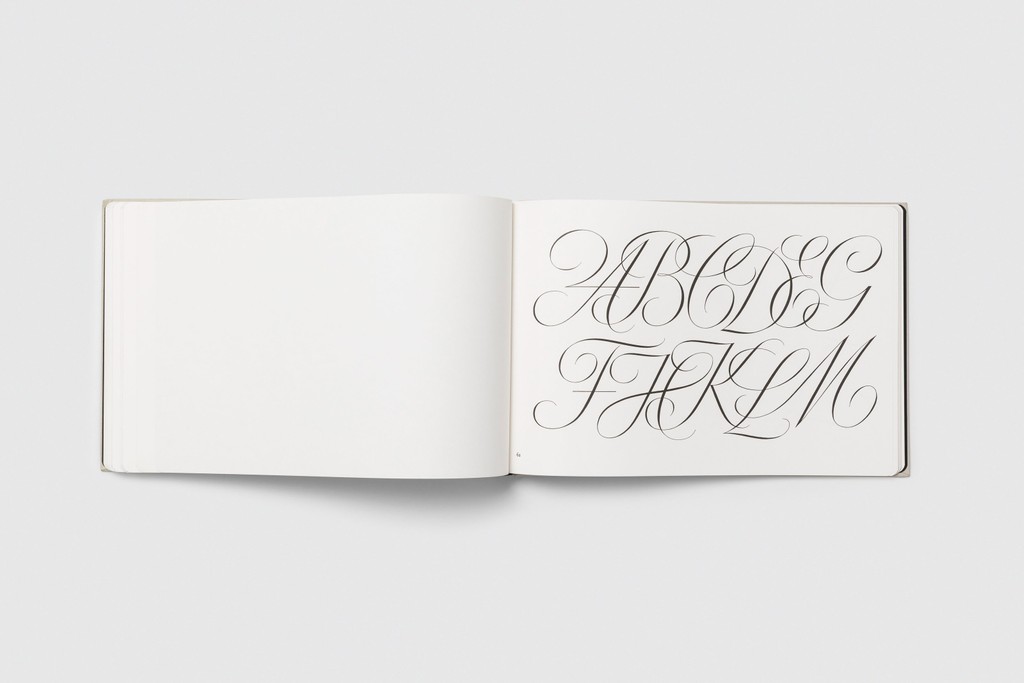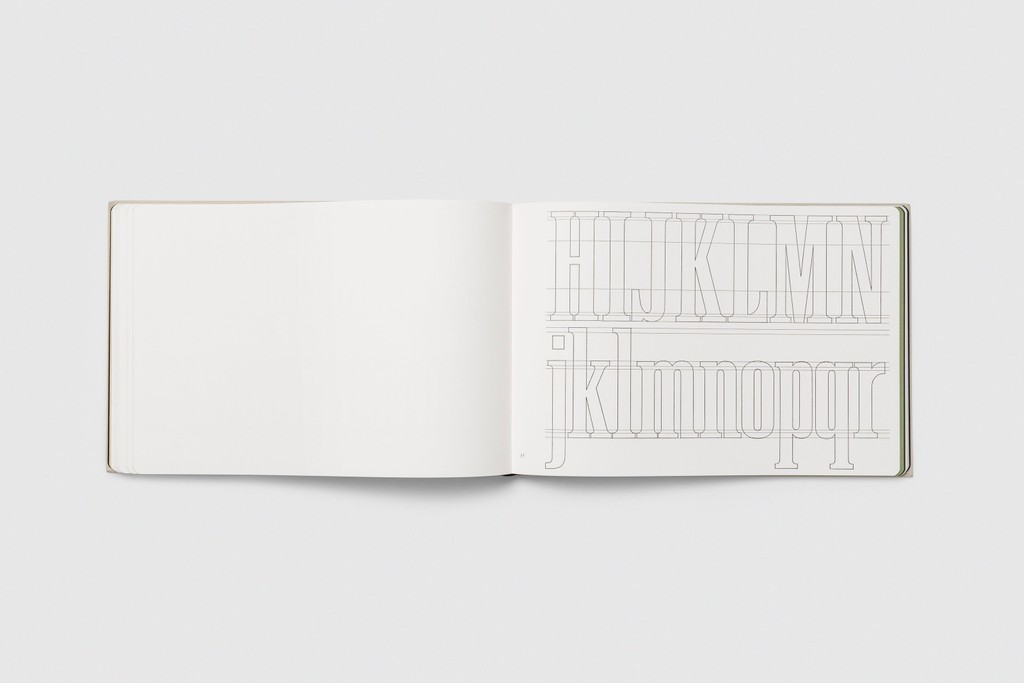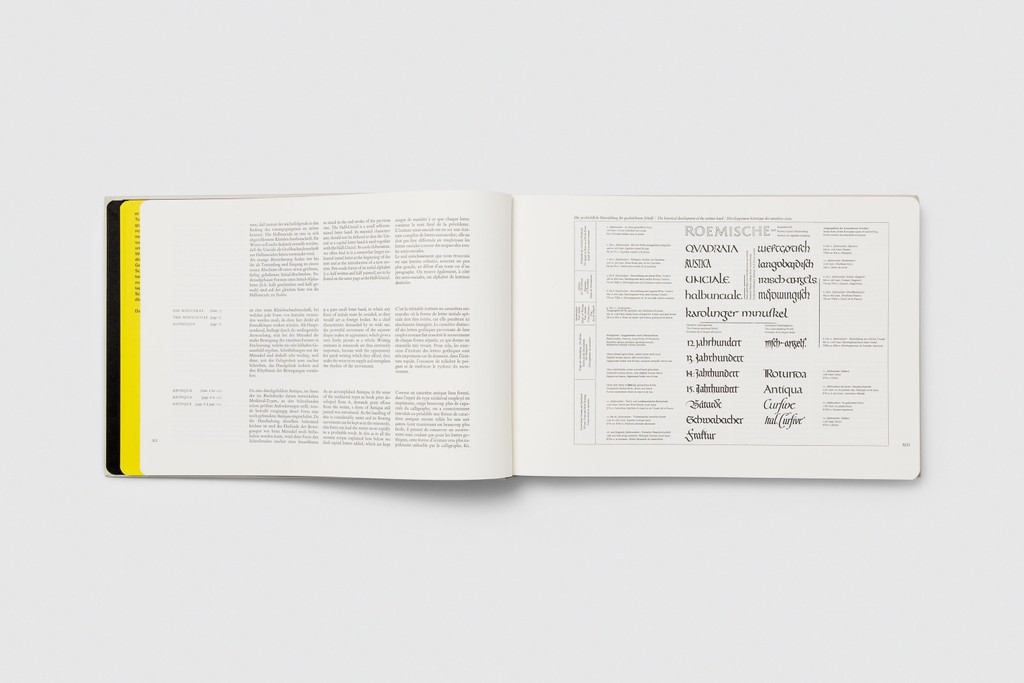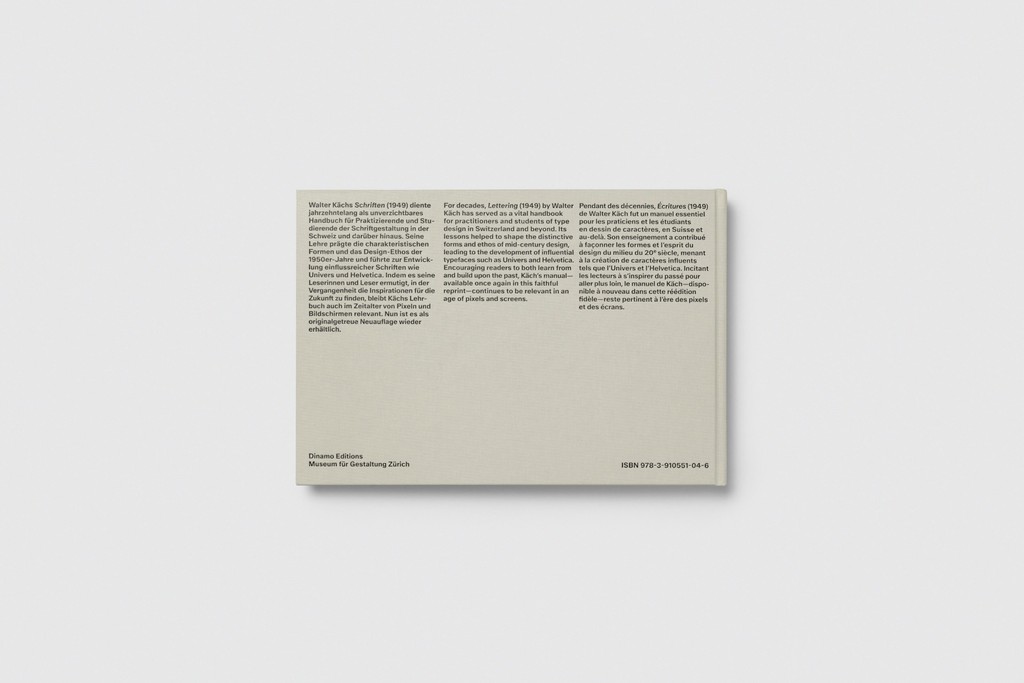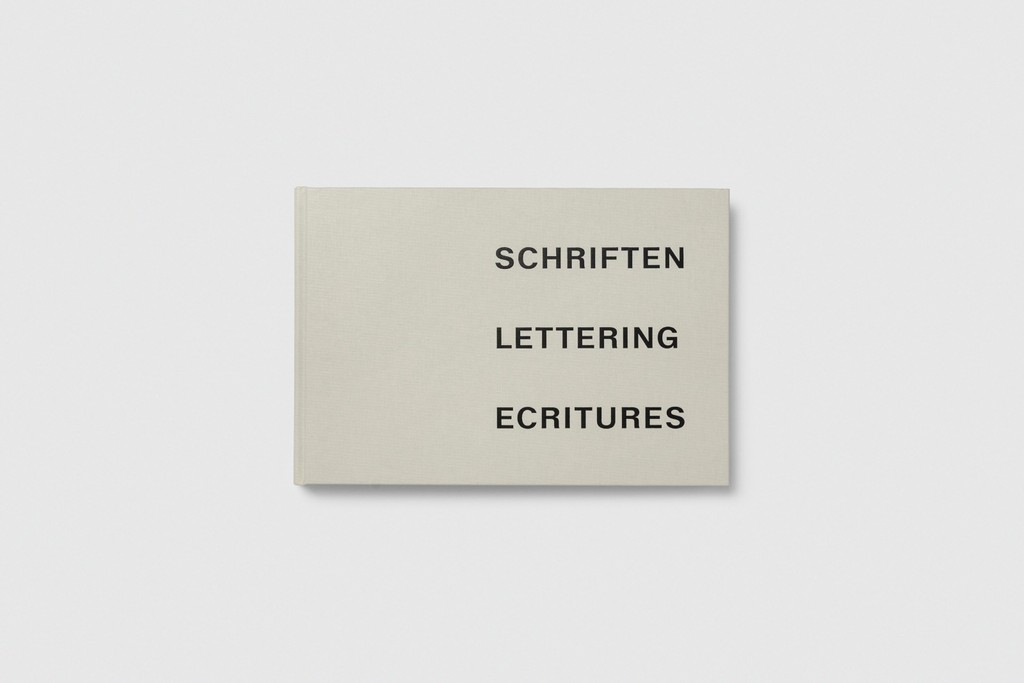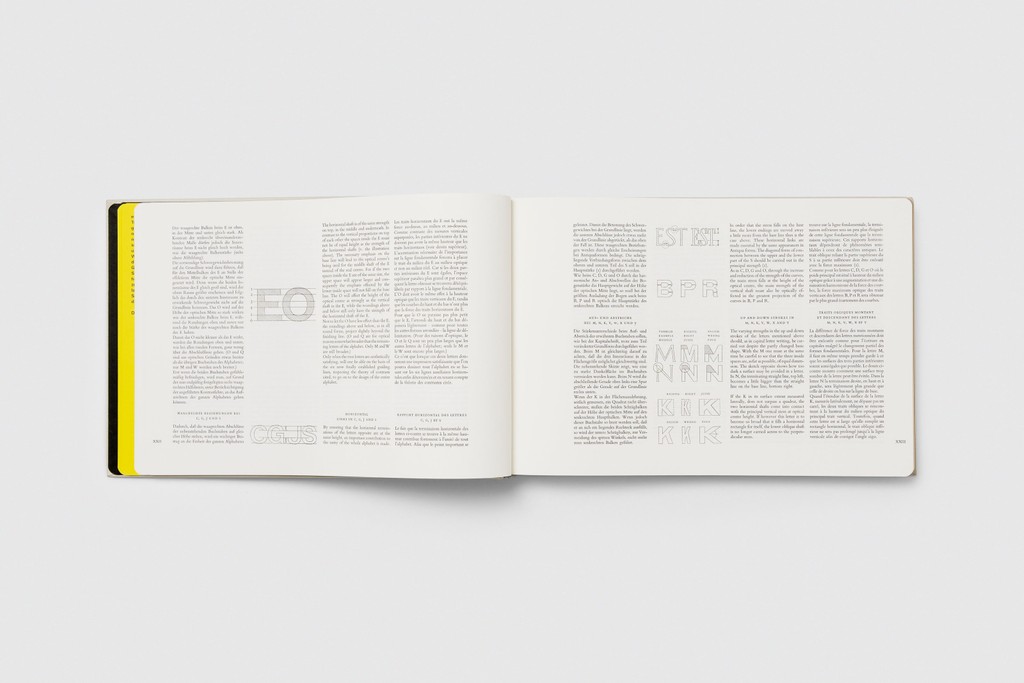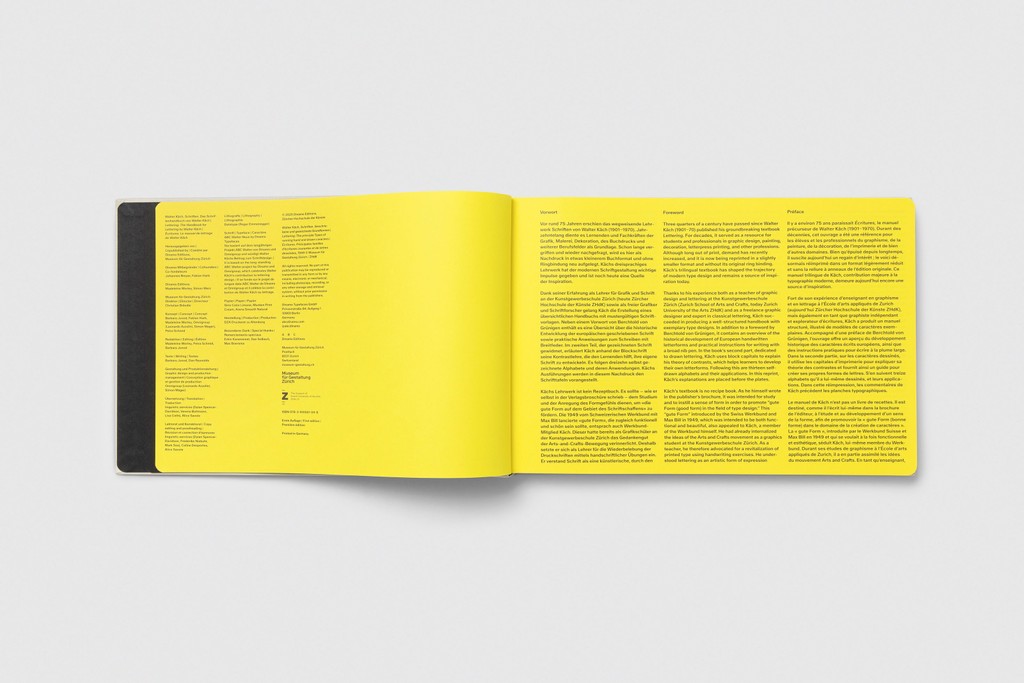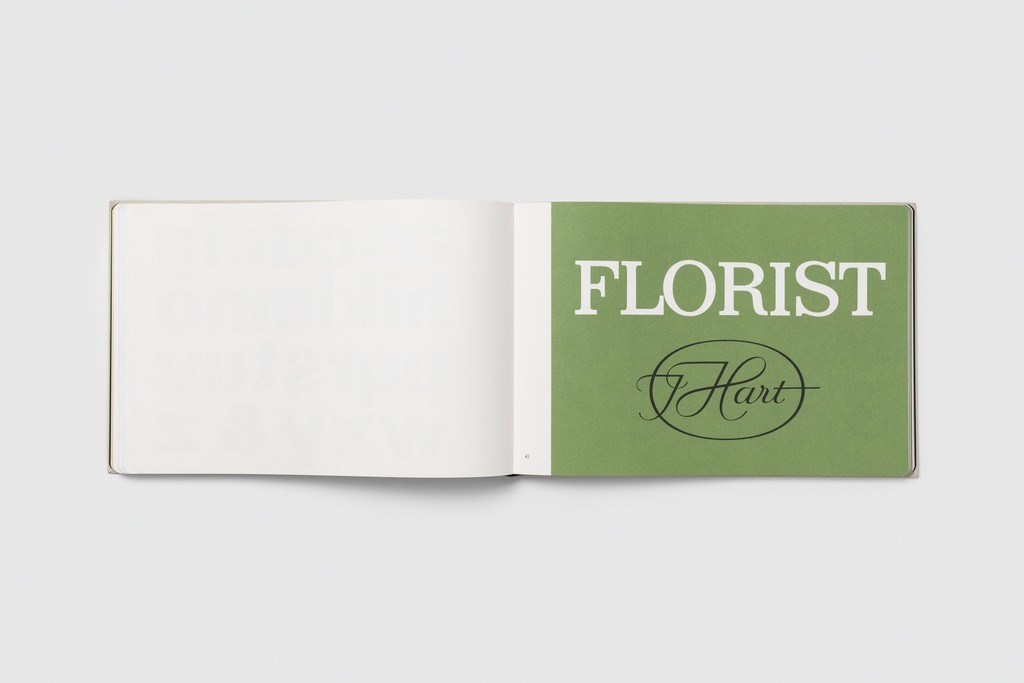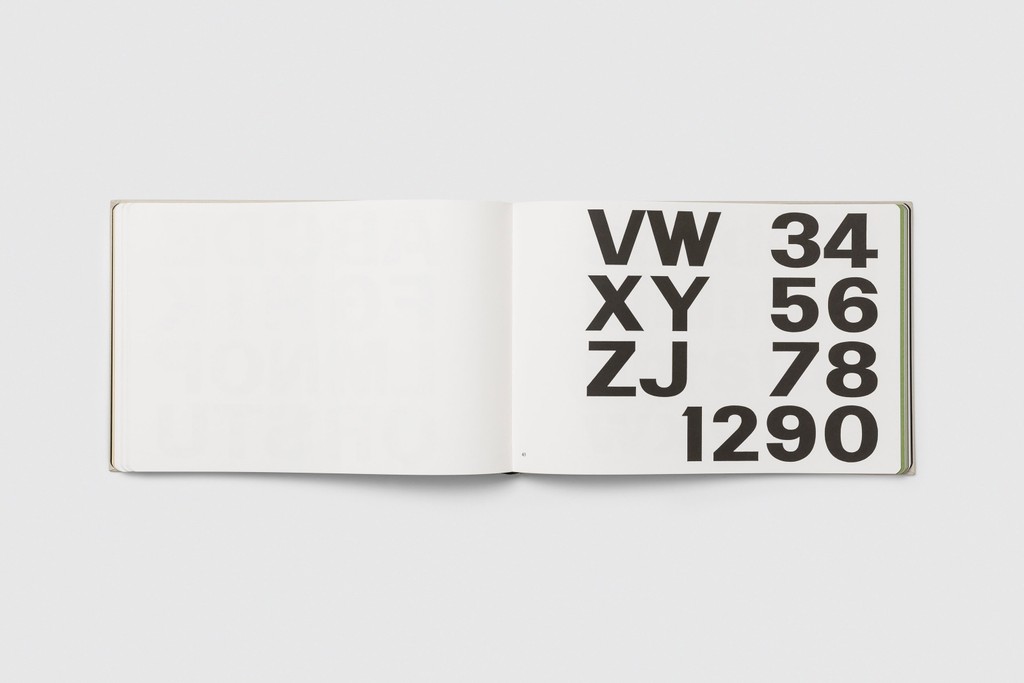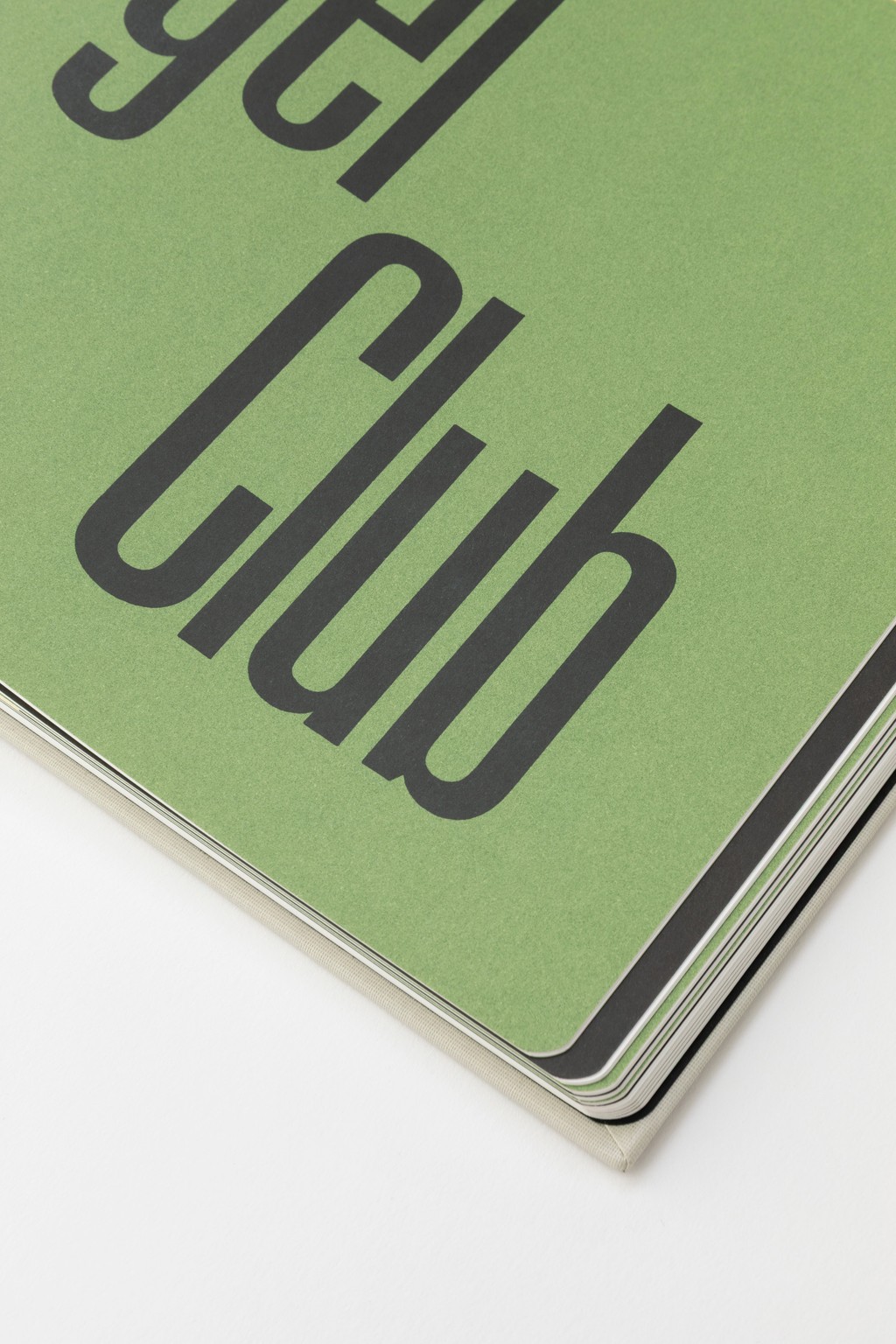
Lettering: The Handbook for Lettering by Walter Käch
The Handbook for Lettering by Walter Käch
For decades, Walter Käch’s Lettering (1949) served as a vital handbook for practitioners and students of type design in Switzerland and beyond. Its lessons helped shape the distinctive forms and ethos of mid-century design, leading to the development of influential typefaces such as Univers and Helvetica. Until now, this historic type textbook has been notoriously out of print.
Käch was ahead of his time, and his suggestions remain relevant for our current age of Bezier curves and pixels. Today’s readers can learn by tracing: Käch taught designers how to look for elements in the construction of letters that could be modified and built upon, allowing for the smooth development of typeface families. One of the richest places to find these elements, for Käch, was the history of writing itself, and he encouraged his students to recycle past motifs to unlock new design potential.
This faithful reprint, with a foreword by The Museum für Gestaltung’ Zurichs Curator of the Graphics Collection Barbara Junod and a new introduction by type historian Dan Reynolds, allows for a look into the past to inspire the design of new typefaces. All text is trilingual, with German, English, and French translations.
Paper: Siro Color Limone, Munken Print Cream, Arena Smooth Natural
180 pages, offset print with embossed front, back and spine, plus hardback binding with rounded corners